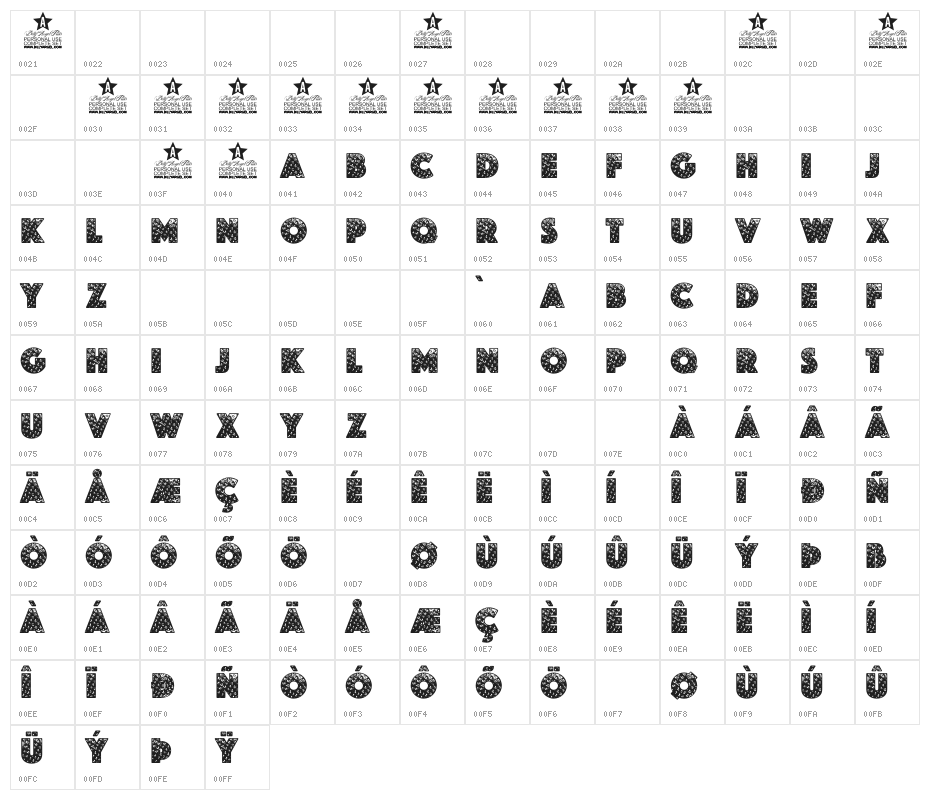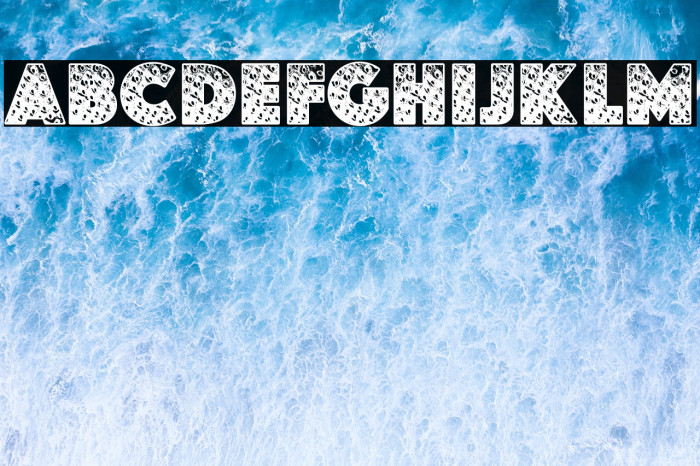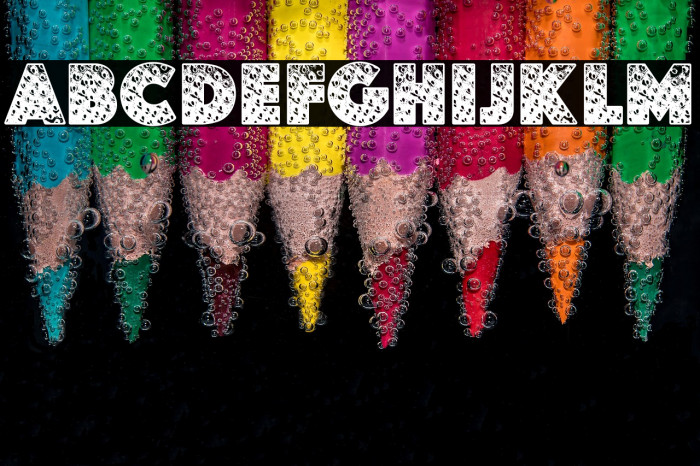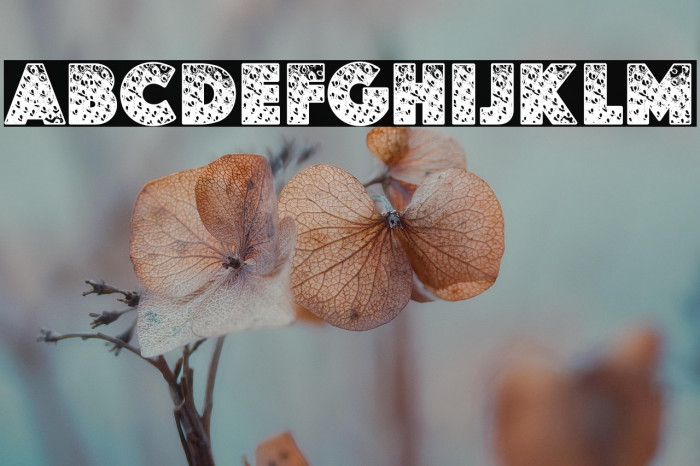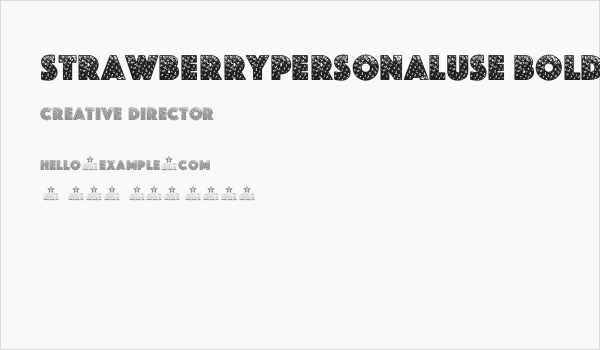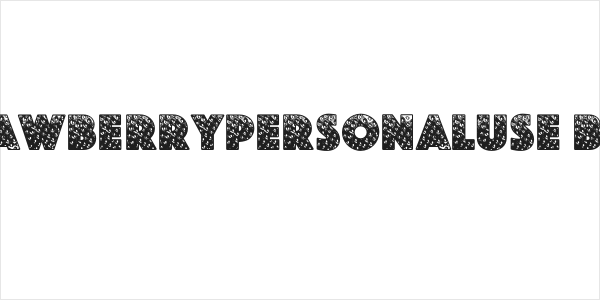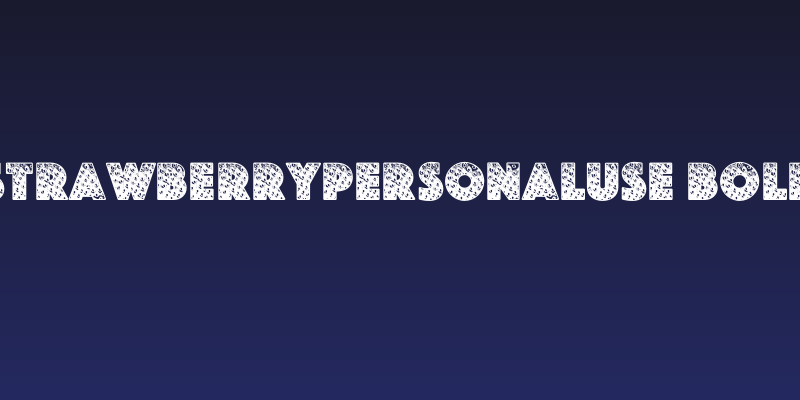
STRAWBERRYPERSONALUSE-Bold Font
STRAWBERRYPERSONALUSE-Bold Description
This font features a bold, decorative style with a playful and whimsical design. Each letter is filled with a pattern resembling scattered seeds or dots, giving it a textured appearance. The overall look is eye-catching and unique, making it suitable for creative and fun projects. The uppercase letters are prominently displayed, showcasing a strong presence with their thick strokes and intricate detailing. This font is perfect for adding a touch of personality and flair to any design, making it ideal for use in headlines, posters, and other graphic elements that require a bold statement.
| Use Case | Headlines, Posters, Branding |
| Proposed Projects | Ideal for creative projects such as posters, headlines, invitations, and branding materials that require a bold and whimsical touch. |